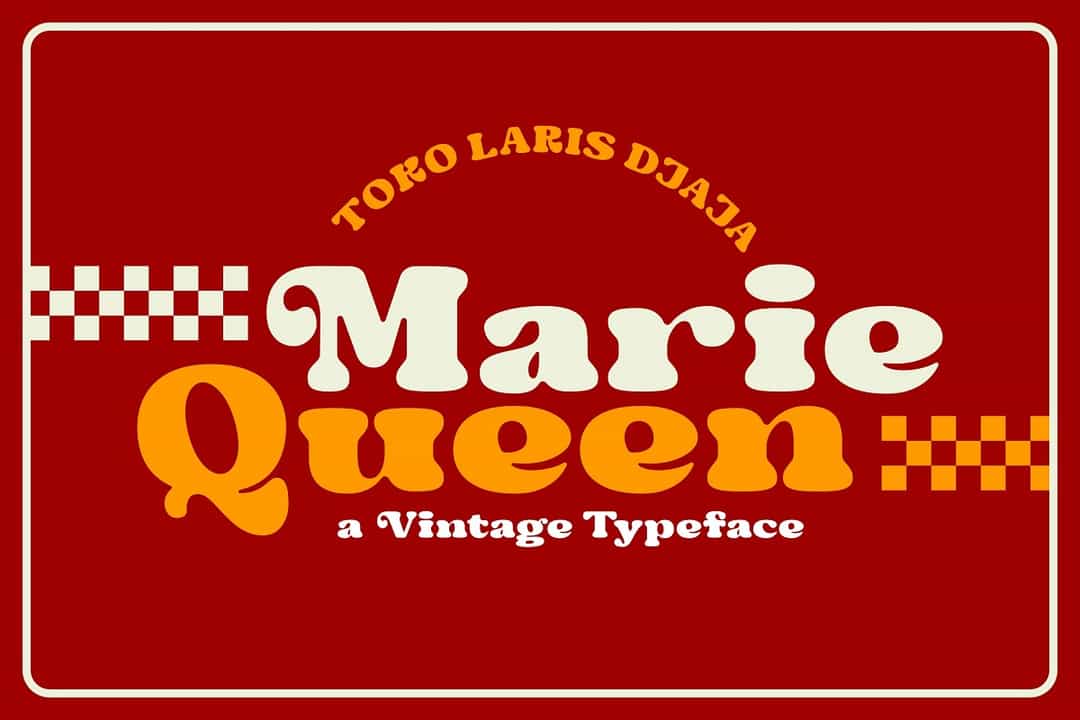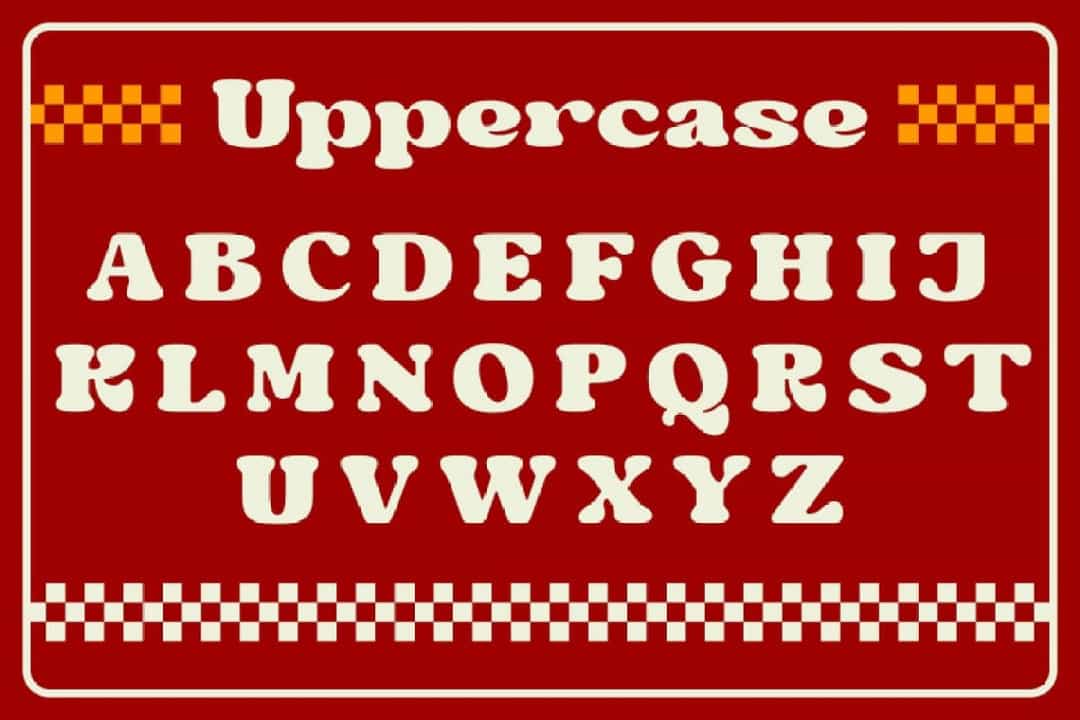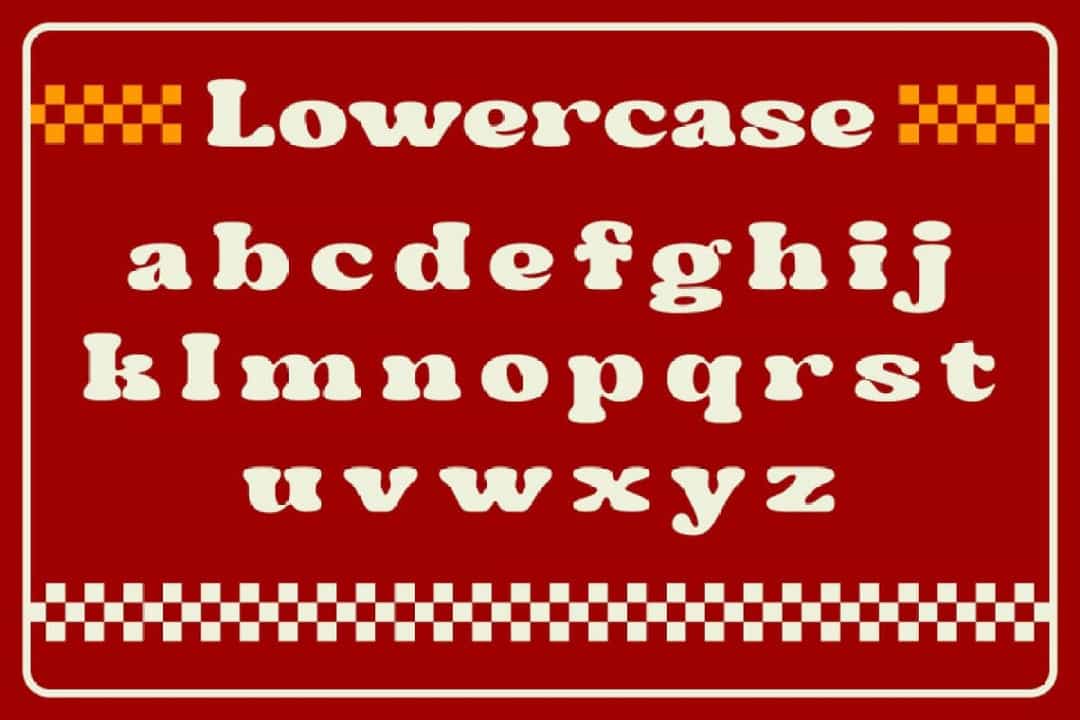
The Marie Queen font is an aggressive, strong and durable retro vintage typography inspired by bold retro typefaces. Marie Queen feels playfully nostalgic while exuding an incredible retro style; making this font suitable for many projects including label packaging crafting books or even posters!